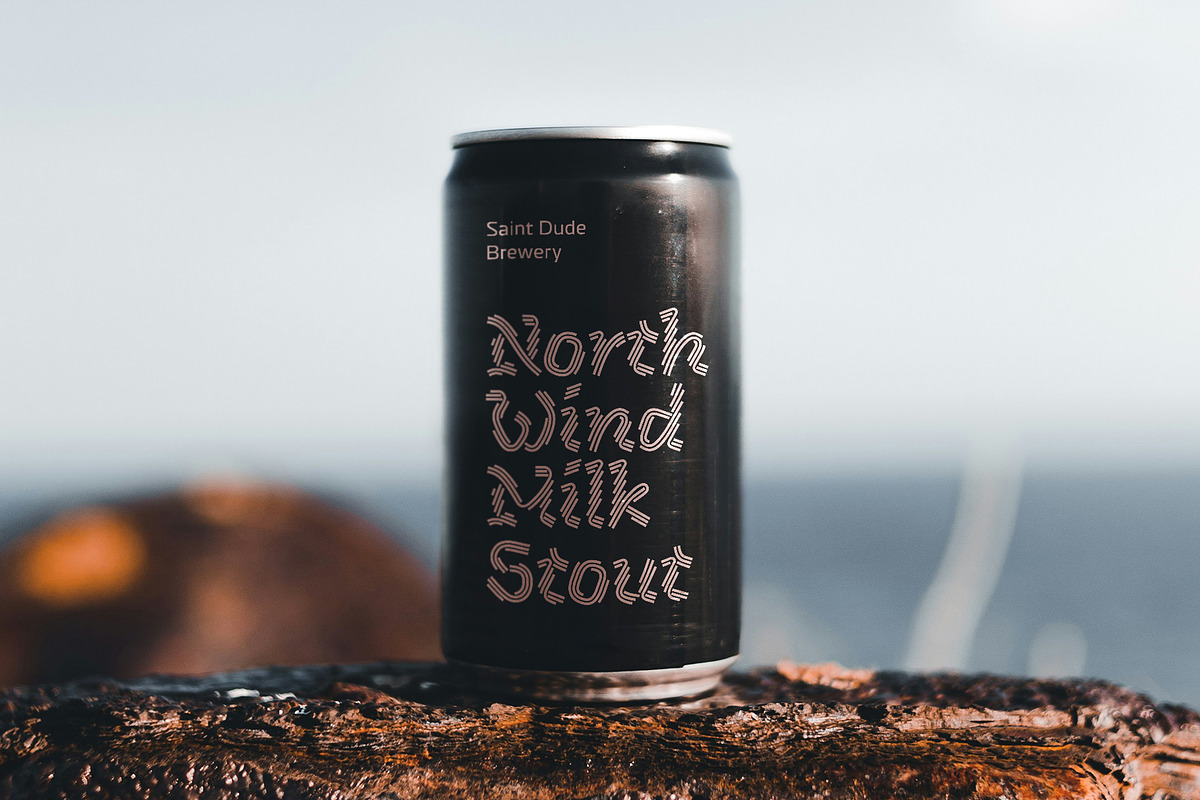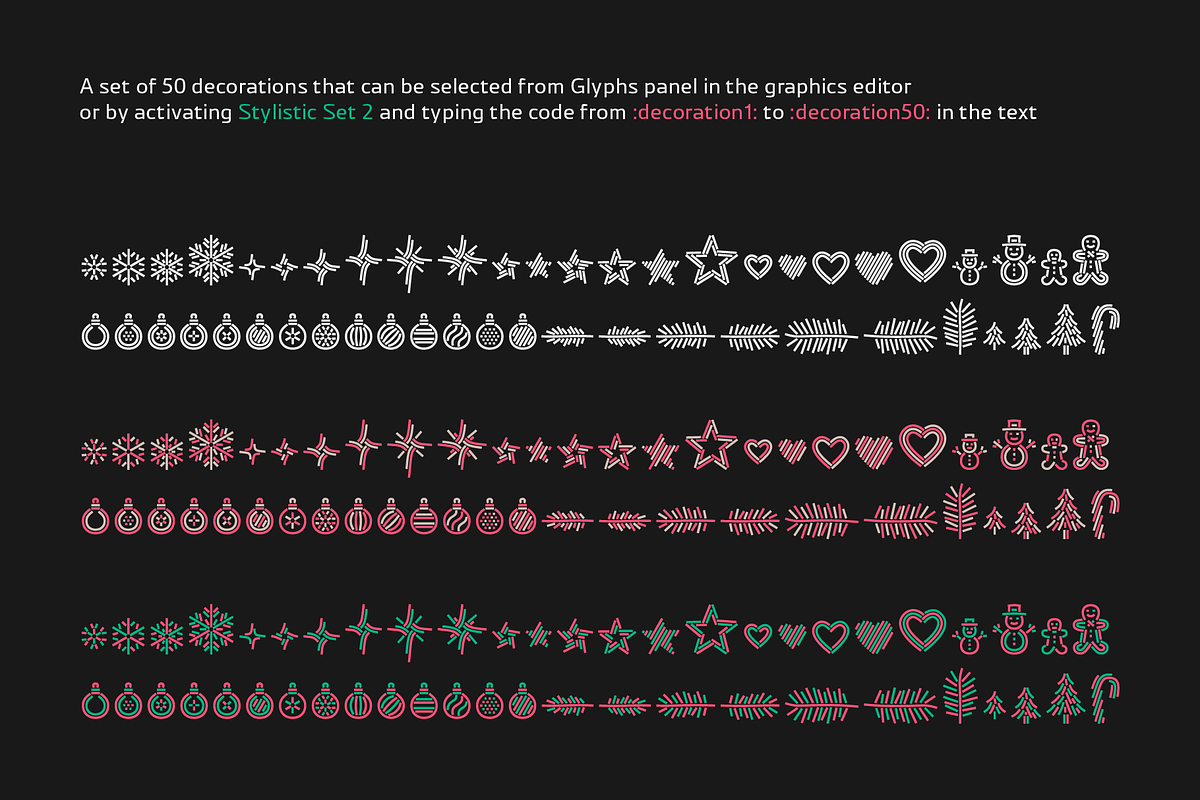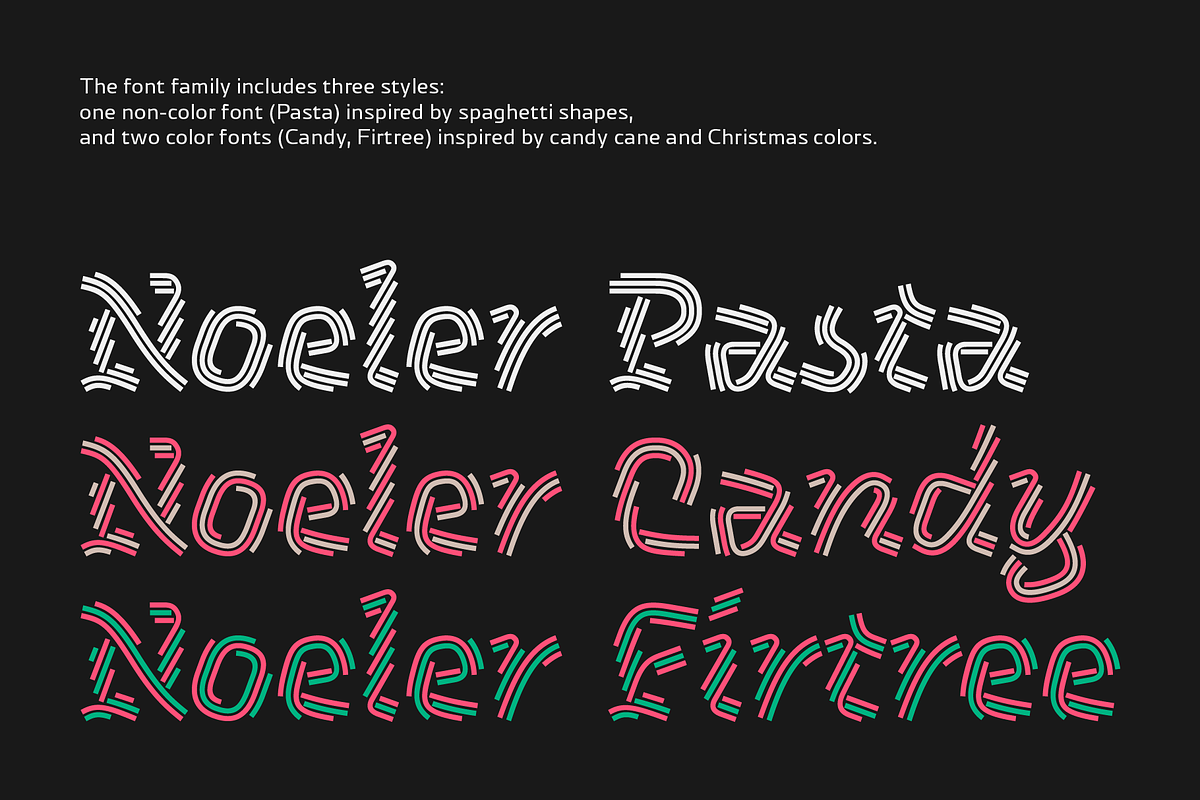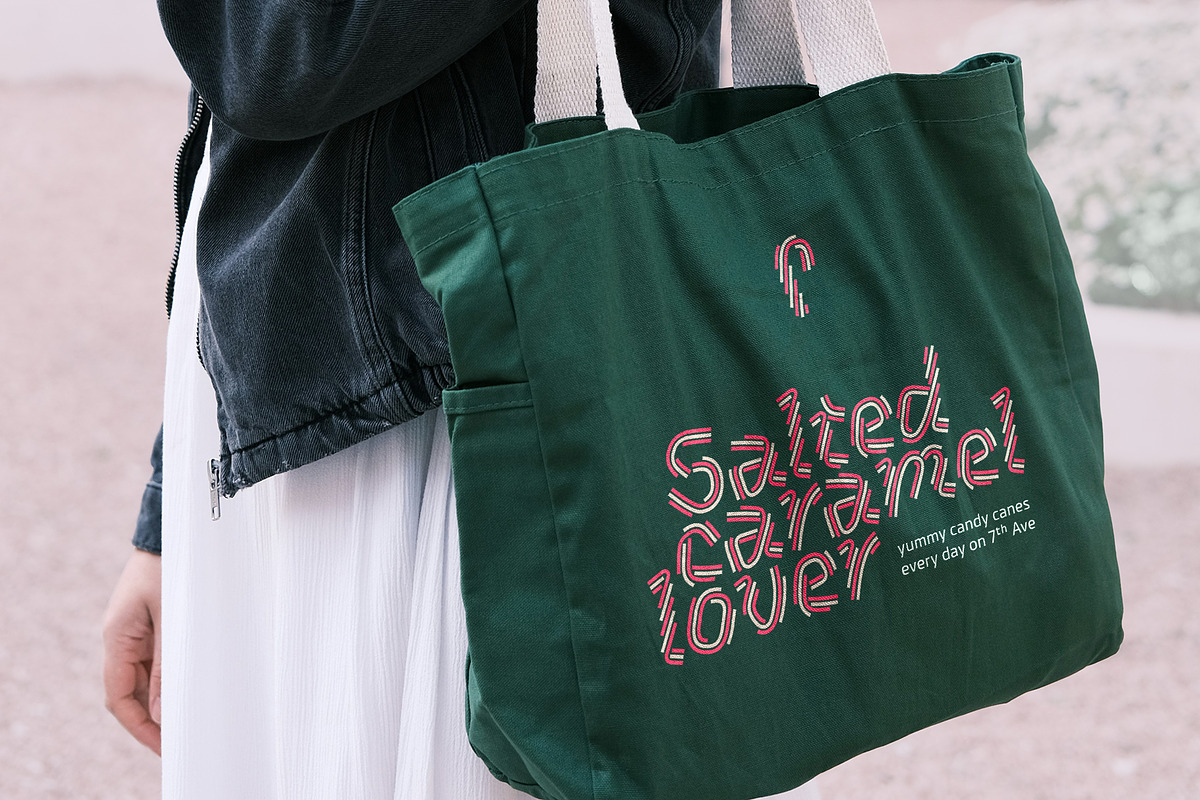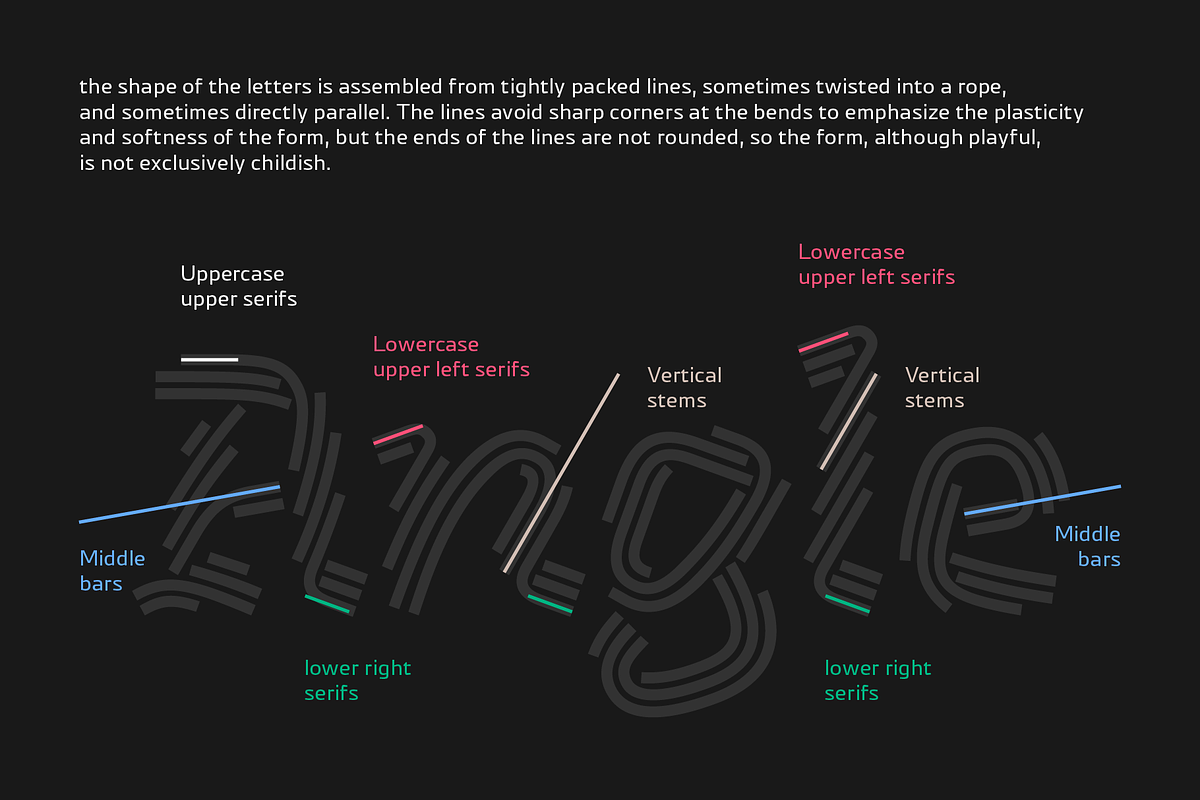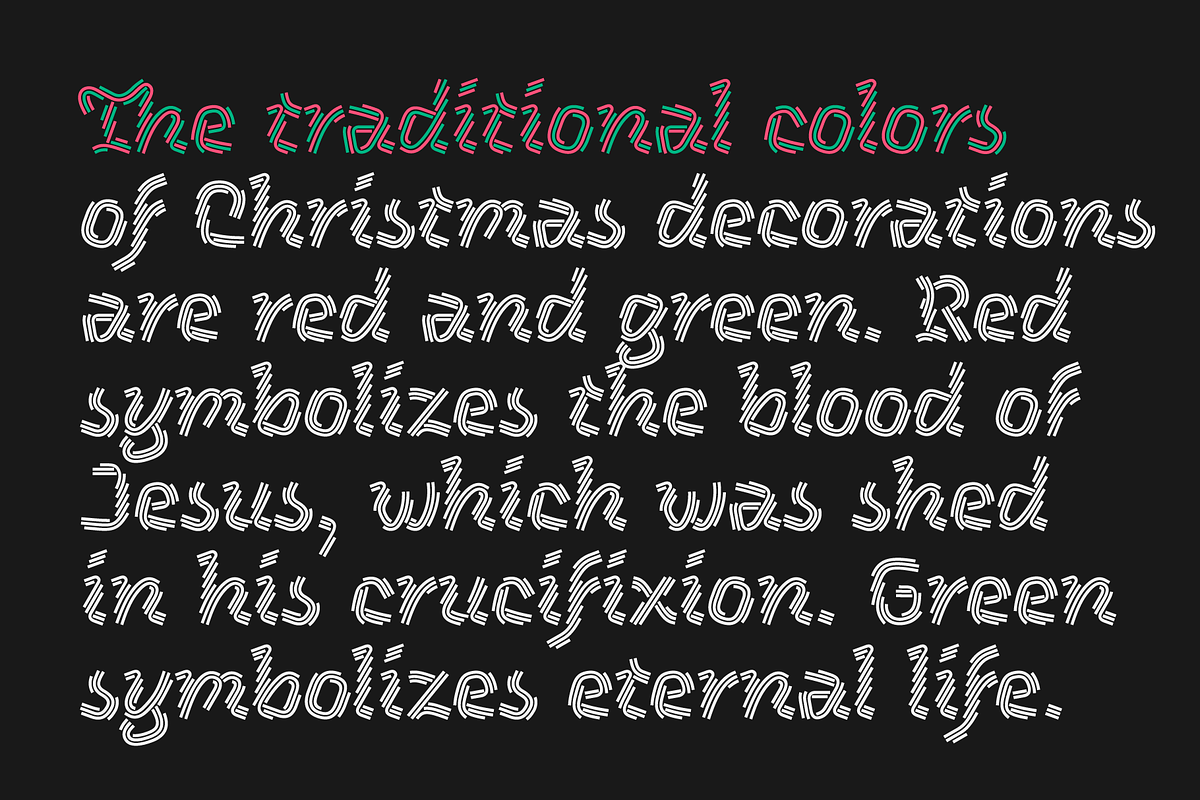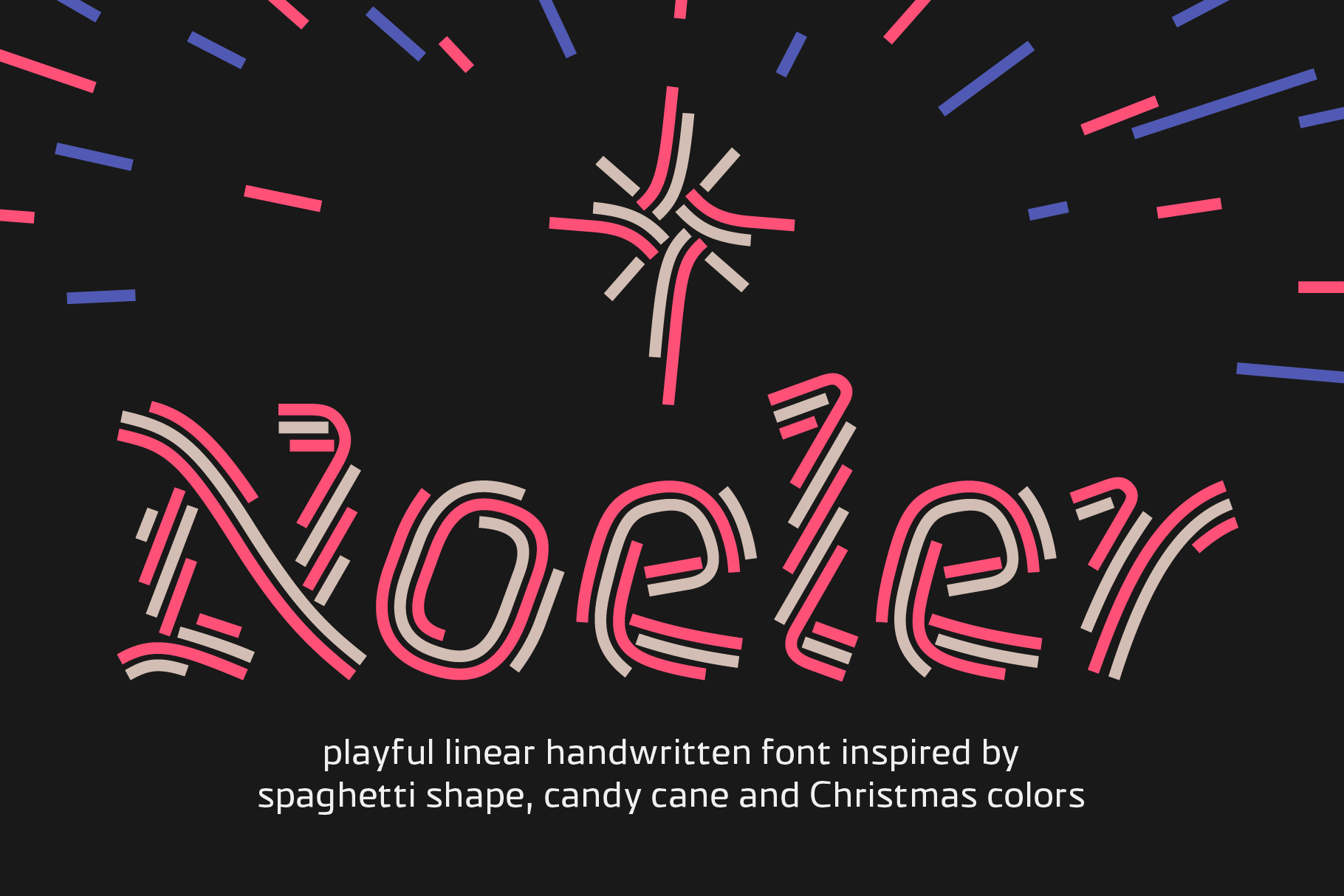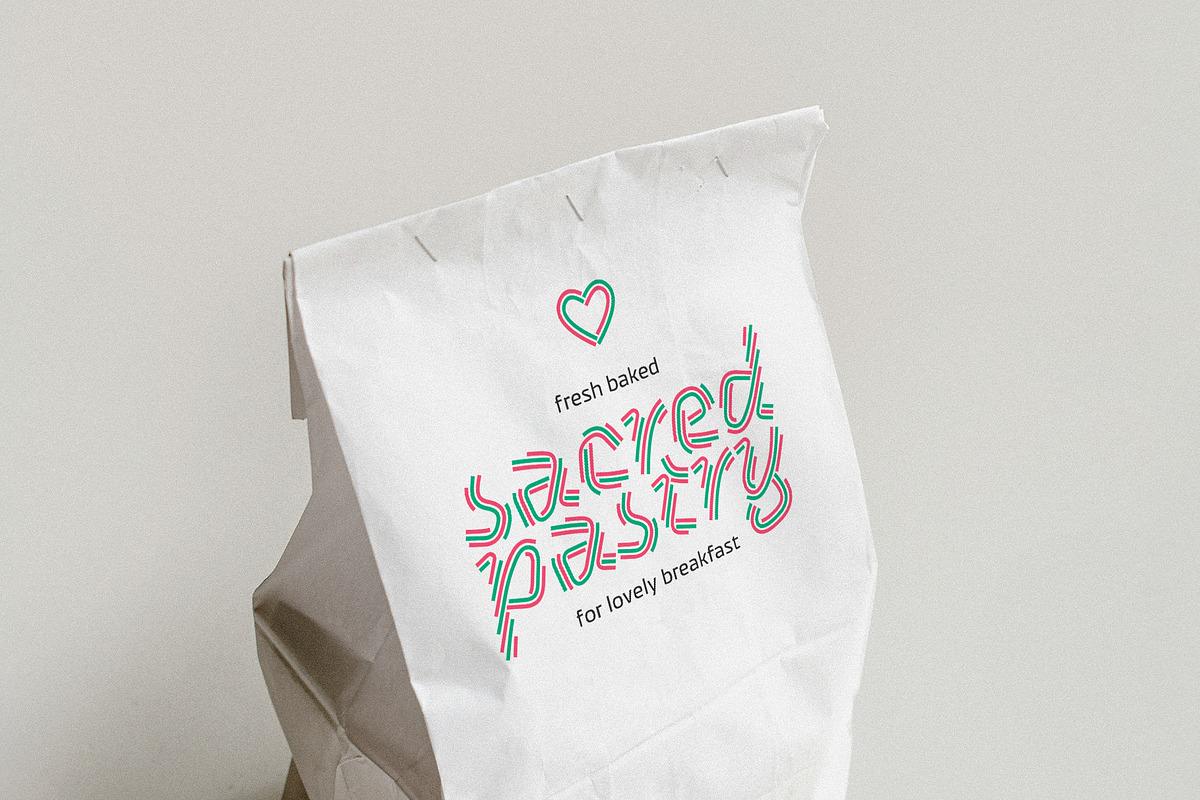
Noeler font
Noeler is a playful linear handwritten font with a festive mood. The font family includes one non-color font (Pasta) inspired by spaghetti shapes, and two color fonts (Candy, Firtree) inspired by candy cane and Christmas colors.
Styles: Pasta, Candy, Firtree
Scripts: Latin, Cyrillic, Greek
Concept
Shape and color. The story of this font begins with the shape of a candy cane, which resembled the Latin capital letter J, and so the idea arose that this twisted shape and these colors could really be letters. Interestingly, in a non-color version, the same shapes begin to resemble spaghetti, and that is why the styles of the font family were named according to their visual function. So, the shape of the letters is assembled from tightly packed lines, sometimes twisted into a rope, and sometimes directly parallel. The challenge was to make the shape of the letters easily recognizable, even without a clear outer contour. That is why the lines are quite dense, but not so dense that the colors of neighboring lines merge with each other. The lines avoid sharp corners at the bends to emphasize the plasticity and softness of the form, but the ends of the lines are not rounded, so the form, although playful, is not exclusively childish.
Mood and style. The vision suggested that the mood of the font should be festive and Christmassy. When else to savor candy canes than during the winter holidays! So the handwritten style fit as well as possible than the dry geometric. There are a bit of asymmetric serifs in lowercase letters and a bit of Fraktur in capital letters. The form received several different angles of inclination to emphasize its playfulness and refusal to be serious. No, sir, we won't be serious on the holidays. We will celebrate and have fun!
Color font: Noeler has two color fonts – Candy (pink + caramel) and Firtree (pink + green). Color fonts are represented in two versions – with COLR table or SVG table. COLR version is needed for all the web browsers and most of the desktop applications. SVG version is needed for InDesign, After Effects, Premiere Pro, Inkscape, CorelDRAW. Figma doesn’t support color fonts yet (checked in 2025).
Stylistic Set 2 “Decorations”: The font contains a set of 50 primitive linear decorations that could be handy for Christmas designs, such as: snowflakes, stars, star of Bethelhem, five-pointed stars, hearts, candy cane, fir trees, fir branches, snowman, gingerbread man, Christmas bulbs. Some of them are presented in different size and appearance to fit with lowercases or uppercases. There are two ways to apply them: 1. Open the Glyphs panel in the graphics editor and select the decorative element manually. 2. Activate Stylistic Set 2 and type the keywords from :decoration1: to :decoration50: in the text.
Stylistic Alternates: Y f s
Contextual Alternates: Дд Дз Ду Цд Цз Цу Щд Щз Щу цд цз цу щд щз щу
Standard Ligatures: Th fb fh fk fl ff ffb ffh ffk ffl ЇЇ ії її
Figures: Lining (default), Oldstyle, Superscript, Subscript, Numerator, Denominator.